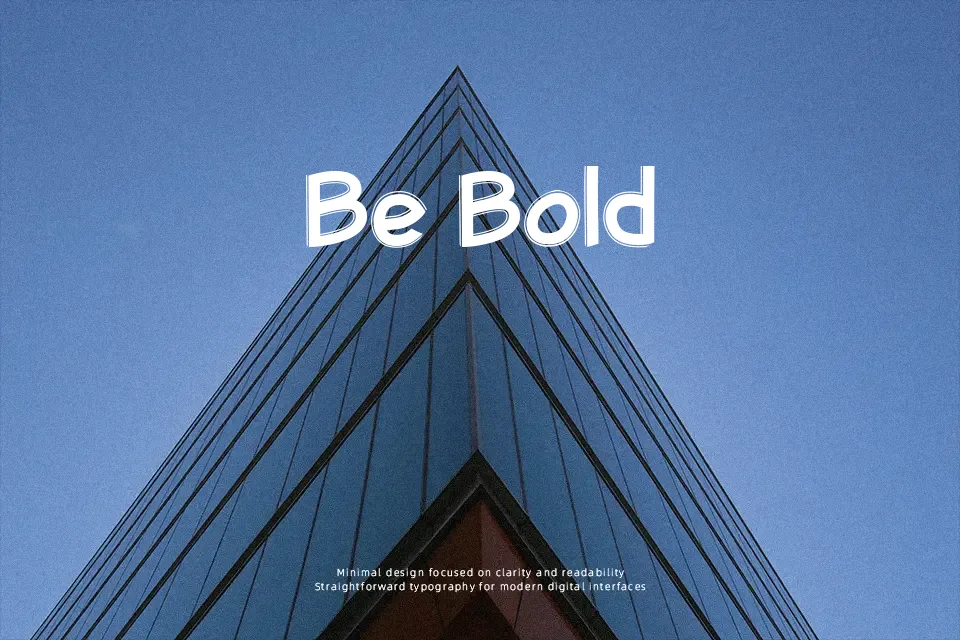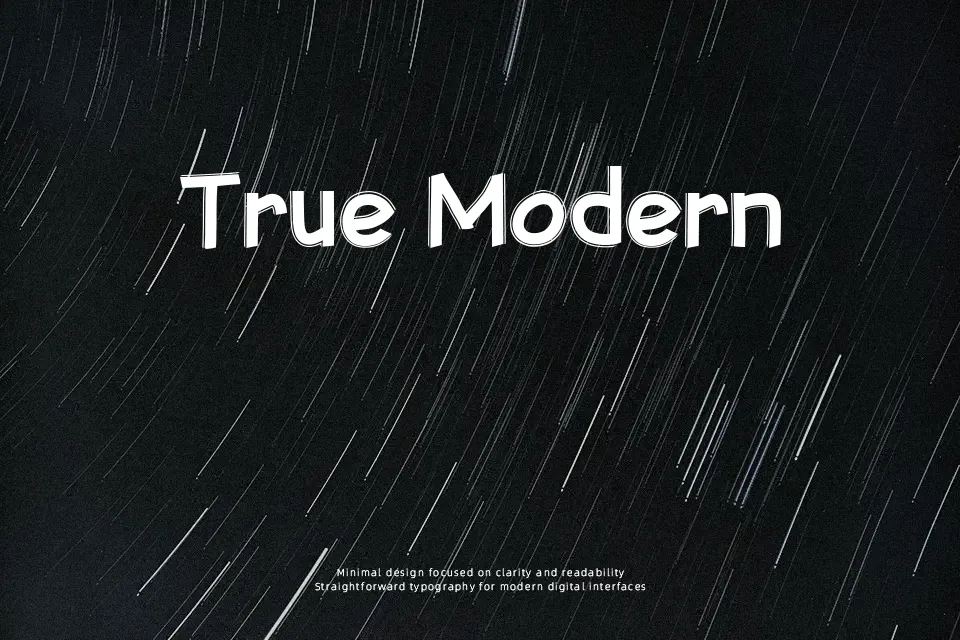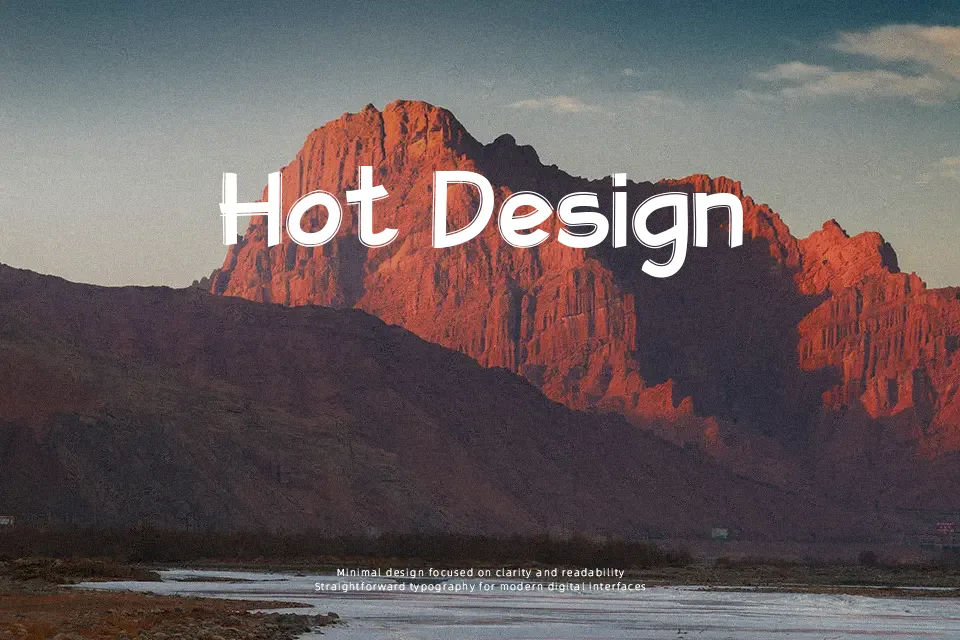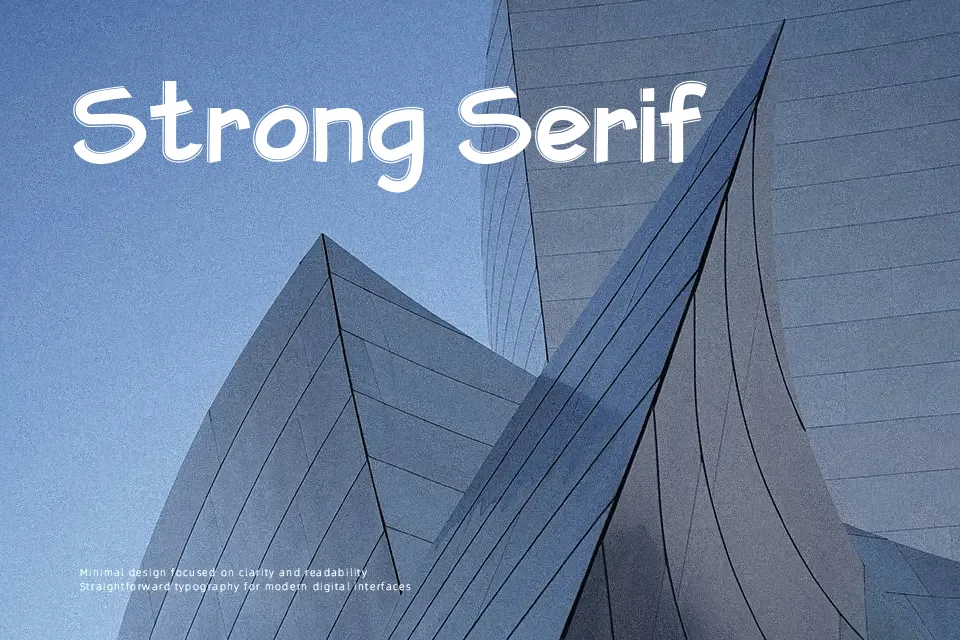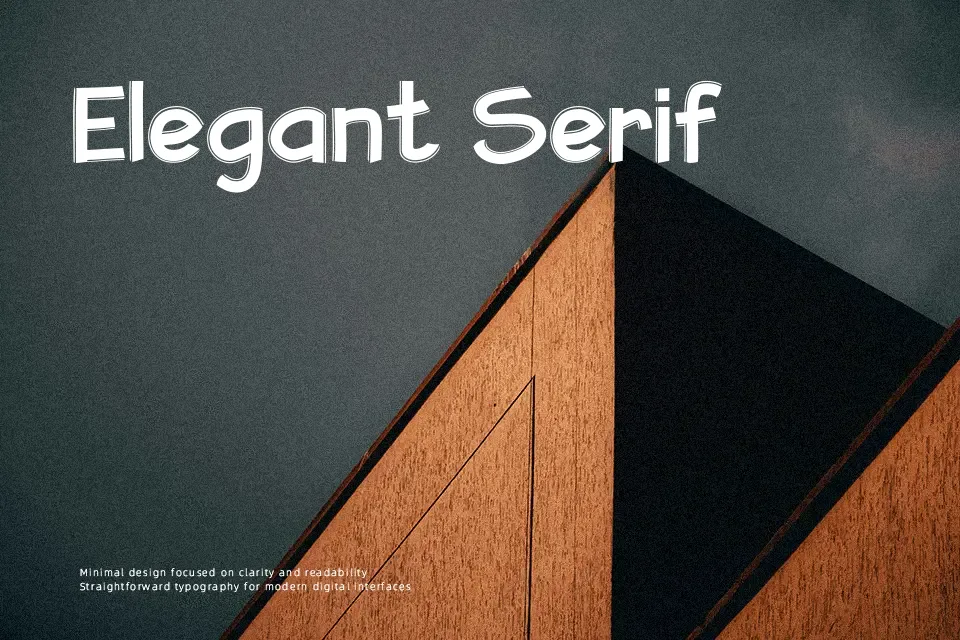
Artescratch Font
There’s a loose, unpolished confidence to Artescratch that catches the eye before you even read the word. Its characters carry thick, rounded strokes with a hand-sketched quality — not perfectly clean, and clearly not trying to be. The slightly irregular letterforms give it a grunge-adjacent warmth, somewhere between a marker doodle and intentional display lettering. It works well for poster titles, DIY brand identities, music event flyers, and social media headers where raw energy matters more than precision. At small sizes or in body text blocks, legibility breaks down fast — the looseness that makes it distinctive at display scale becomes noise in tight settings. Overall, it’s a reliable pick for designers who want personality without over-polishing.
Best For:- Street-style poster headers and gig flyers
– Music artist branding and album cover titles
– DIY and handmade product packaging
– Social media graphic headlines
Not Ideal For:- Long body text or paragraph settings
– Corporate reports or formal business materials
– Small-size UI labels or navigation elements
– Luxury or high-end editorial layouts
Perfect for branding, logo, and music, with a bold and decorative style.